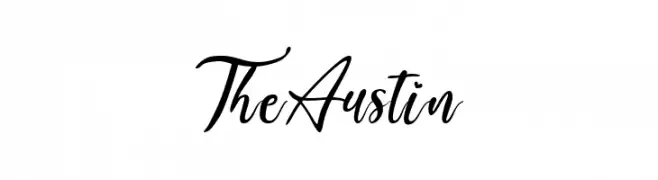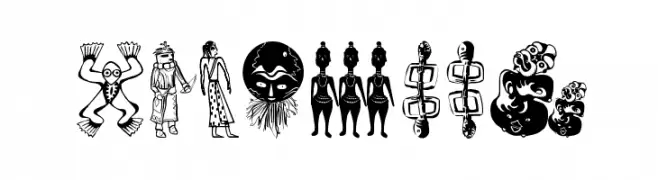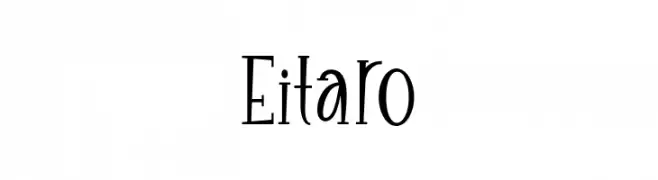
A bold, 3D geometric font with a futuristic and dynamic style.
A bold, geometric font with a three-dimensional shadow effect, ideal for impactful headlines.
A fluid and elegant script font with graceful loops and swirls.
A bold, hand-drawn font with a rugged and organic appearance.
A pictorial, decorative font mimicking ancient cave art and petroglyphs.
A playful, whimsical font with tall, narrow letterforms and a slight slant.